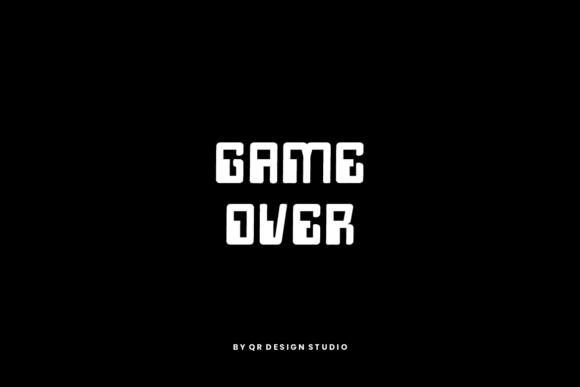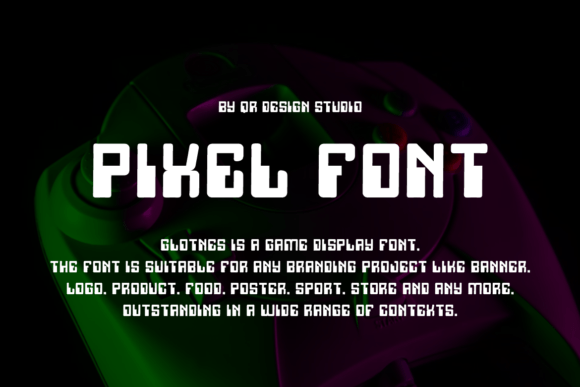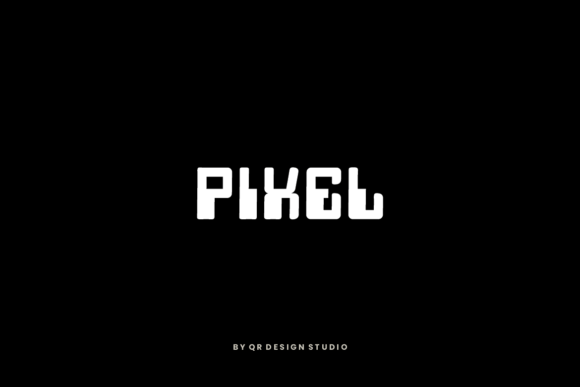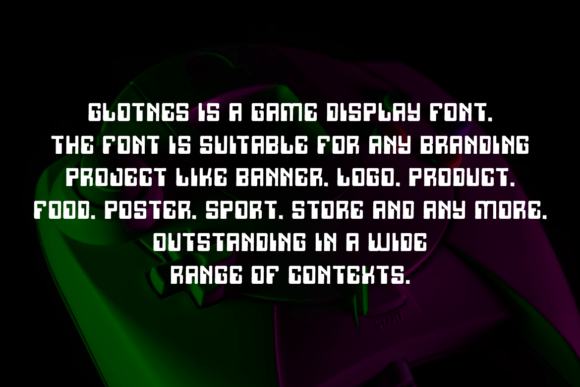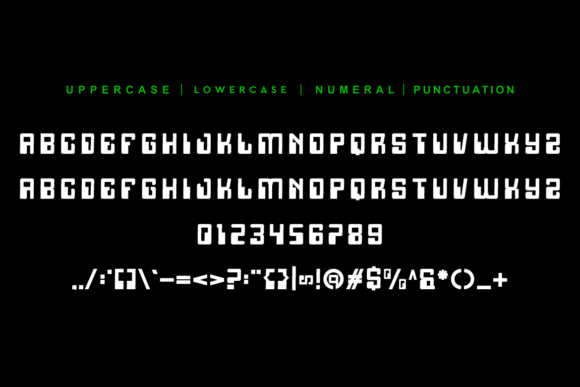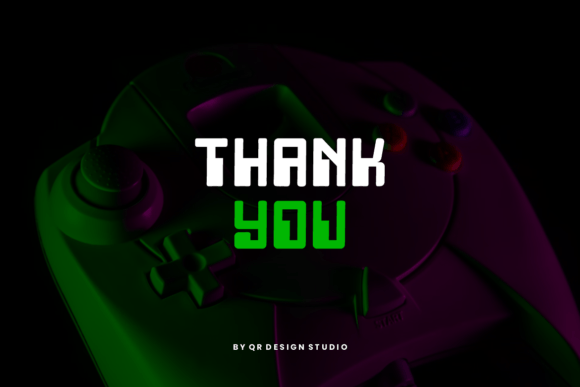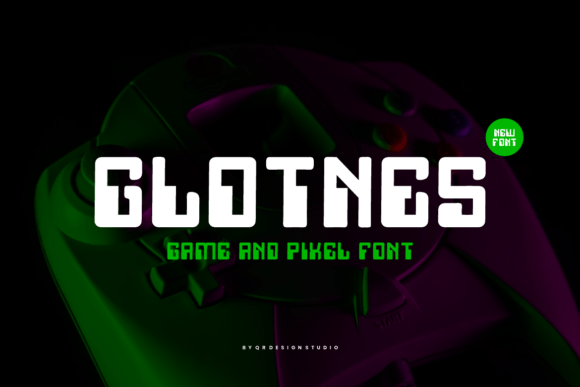
Glotnes Font: The Ultimate Retro Game-Changer for Designers
In the realm of digital design, fonts play a pivotal role in setting the tone and aesthetic of a project. For those looking to infuse their creations with a dose of nostalgia and playfulness, Glotnes Font emerges as a stellar choice. Specifically designed to mimic the pixelated charm of retro video games, Glotnes Font is a game-changer for designers and crafters aiming to capture the essence of the digital past.
The Nostalgic Appeal of Glotnes Font
Glotnes Font is more than just a typeface; it’s a time capsule of digital design. With its pixelated texture and nostalgic appeal, it instantly transports viewers back to the era of 8-bit and 16-bit video games. This font is meticulously crafted to evoke the feeling of classic arcade games, making it perfect for projects that require a playful and digital aesthetic.
Key Features of Glotnes Font
- Pixelated Design: The font boasts a pixelated design that closely resembles the text found in old video games, offering a unique and recognizable look.
- Retro Aesthetic: Its retro aesthetic is perfect for game titles, logos, and any project that aims to capture the nostalgia of the digital age.
- Playful and Digital: Glotnes Font adds a playful and digital touch to any design, making it stand out in a sea of modern and sleek fonts.
- Ease of Use: Designed with user-friendliness in mind, Glotnes Font is easy to integrate into various design projects, from digital media to print.
Ideal Applications for Glotnes Font
Glotnes Font’s unique characteristics make it suitable for a variety of applications, particularly those that benefit from a nostalgic, pixelated look. Some of the ideal uses include:
- Game Titles and Logos: Create eye-catching titles and logos for video games, especially those that are inspired by or pay homage to classic games.
- Digital Art and Graphics: Add a retro touch to digital art, posters, and graphics that require a distinctive and engaging aesthetic.
- Branding and Marketing: Use Glotnes Font in branding and marketing materials to stand out and convey a message of fun and nostalgia.
- Web Design: Enhance web design projects with a unique font that can add character and personality to websites, especially those related to gaming, technology, and digital culture.
To make the most out of Glotnes Font, consider the following tips:
- Pair with Modern Fonts: Combine Glotnes Font with more modern fonts to create a striking contrast that highlights the unique qualities of the pixelated font.
- Experiment with Colors: Take advantage of the font’s pixelated nature by experimenting with color schemes reminiscent of retro games, such as bright, bold colors and gradients.
- Consider Context: Ensure that the use of Glotnes Font aligns with the overall theme and message of your project. Its nostalgic appeal works best when targeted towards an audience familiar with or appreciative of retro digital culture.
Glotnes Font is a versatile and visually appealing typeface that brings the charm of retro video games to modern design projects. Its pixelated design, nostalgic appeal, and playful aesthetic make it an excellent choice for designers and crafters looking to add a digital and retro touch to their work. Whether you’re creating game titles, logos, digital art, or marketing materials, Glotnes Font is sure to enhance your designs with its unique character and timeless appeal.